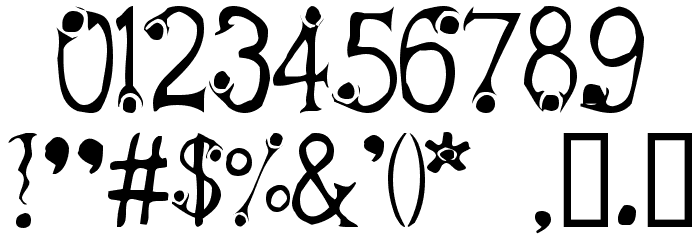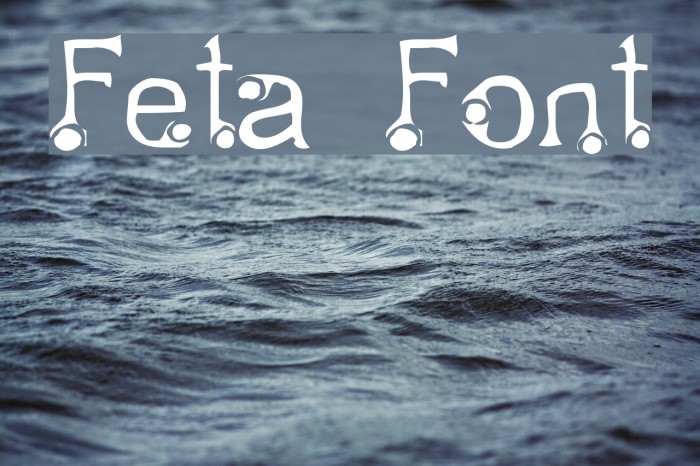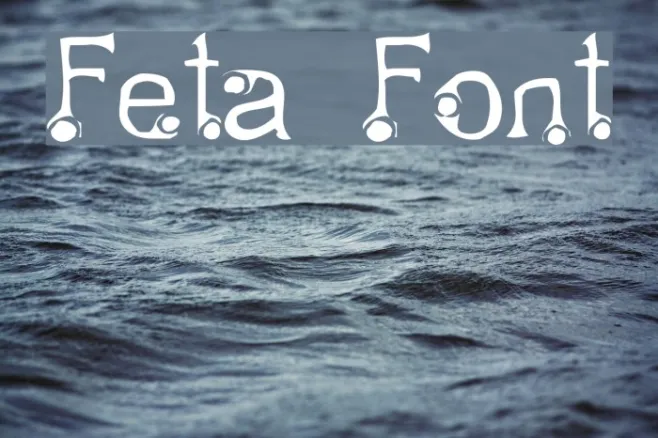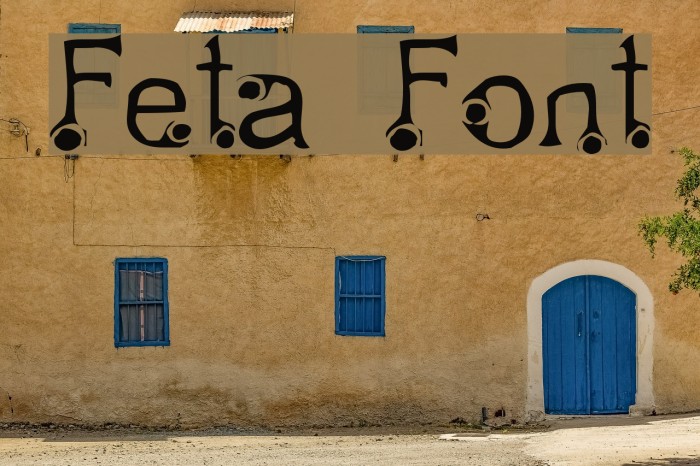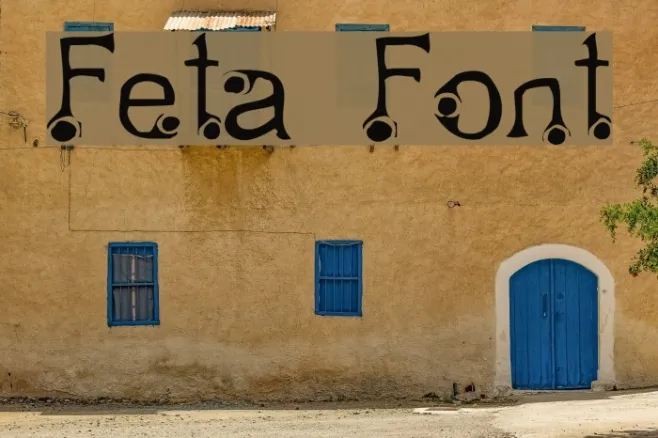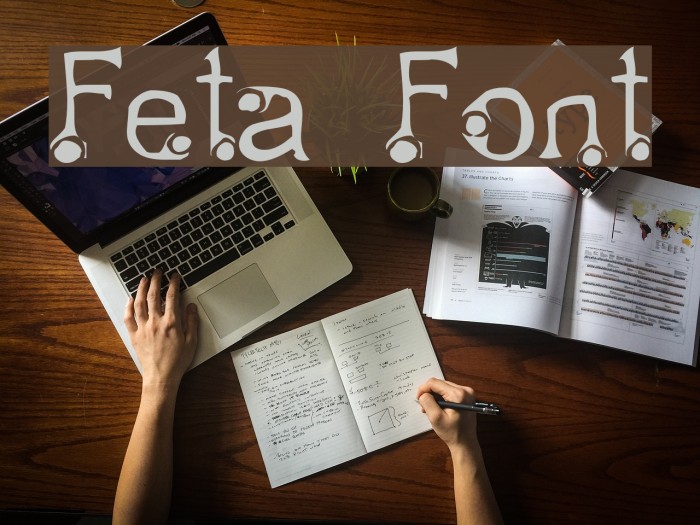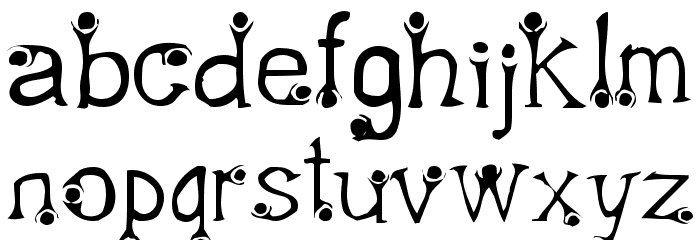
Feta Font
Feta Description
This font features a whimsical and playful design, characterized by its unique incorporation of eye-like elements within each letterform. The characters are bold and have a decorative flair, making them stand out with their quirky and imaginative style. The uppercase and lowercase letters maintain a consistent theme, with the eye motifs adding a sense of personality and fun. The numerals and special characters follow suit, ensuring a cohesive look across all glyphs. This font is perfect for projects that require a touch of humor and creativity, such as children's books, playful branding, or eye-catching posters.
| Proposed Projects | Ideal for children's books, playful branding, eye-catching posters, and creative designs. |